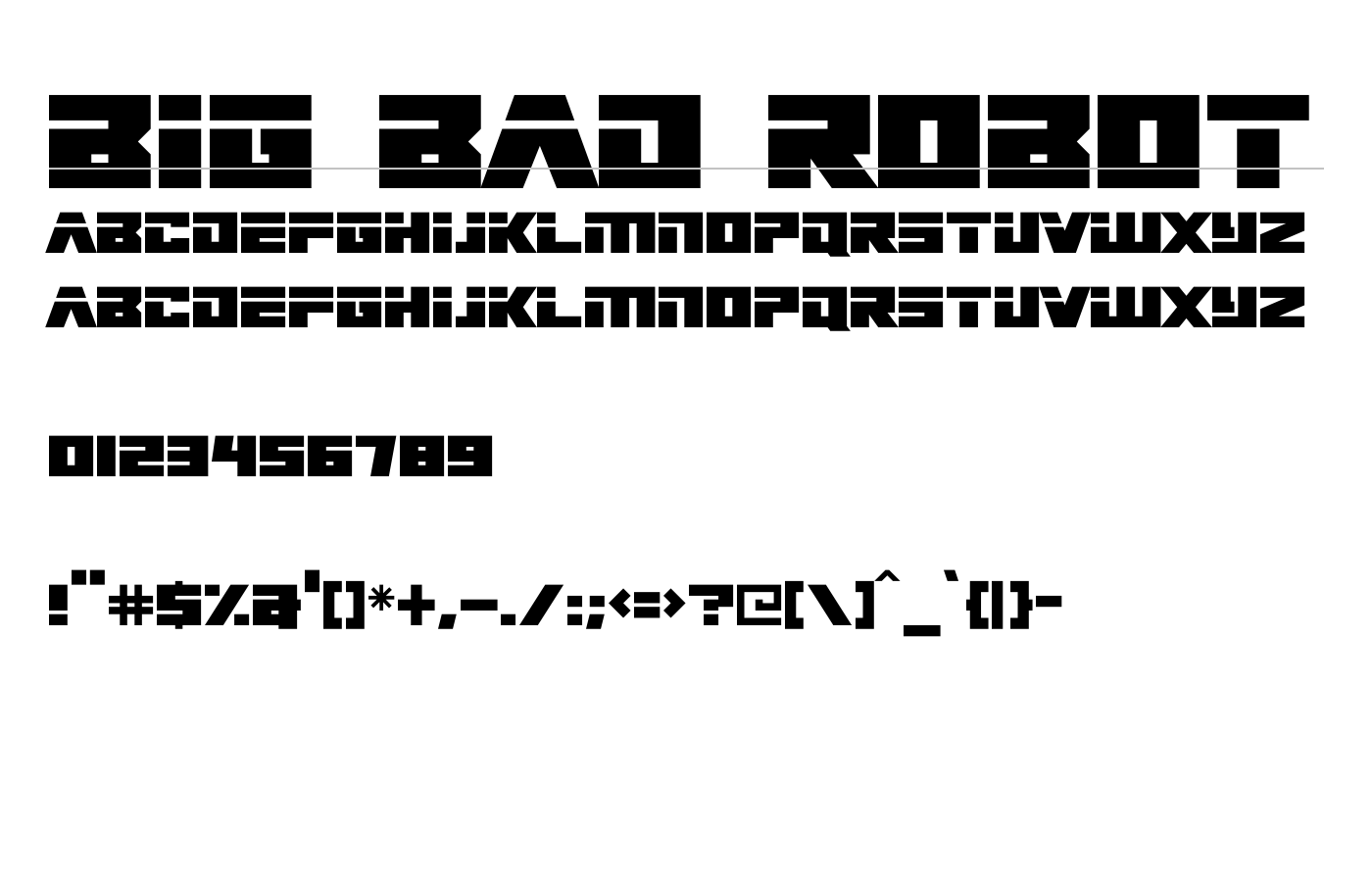
Big Bad Robot is a bold, geometric sans serif font with a striking, futuristic design that features sharp angles and blocky forms, evoking a robotic and tech-inspired aesthetic. Its heavy weight and condensed width give it a strong, confident presence, making it perfect for eye-catching headlines, logos, or branding that aims to communicate strength and innovation. This font works well in designs looking to combine modernity with a playful, sci-fi edge.
Big Bad Robot Font